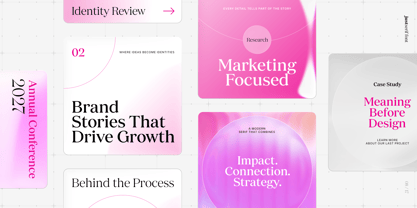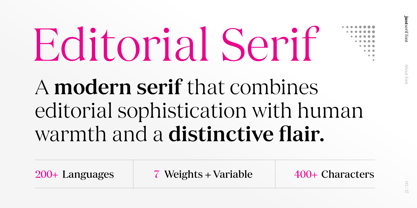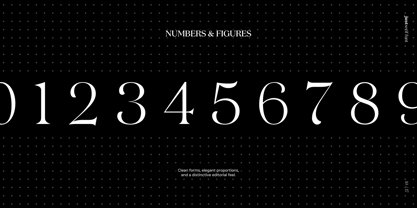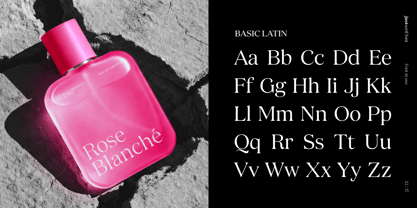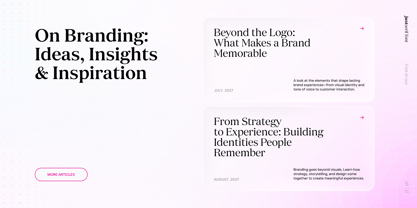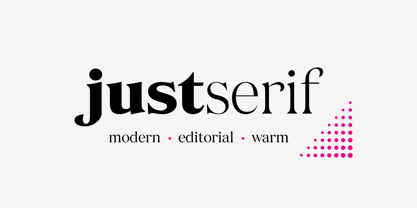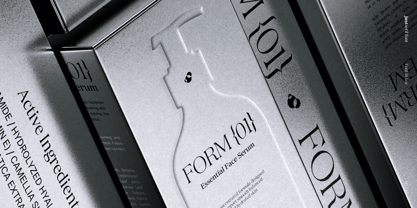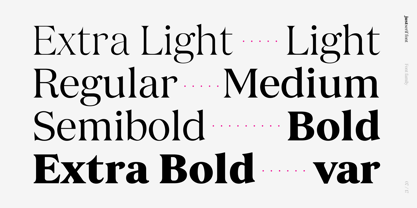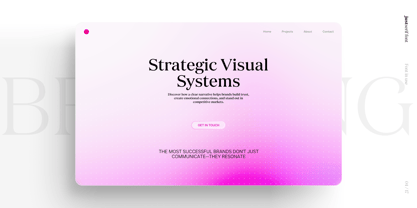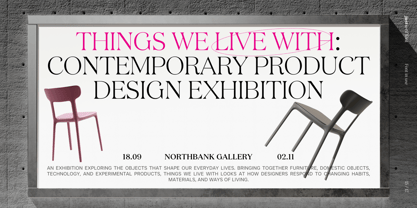
A contemporary editorial serif with human warmth, sculpted contrast, and distinctive character.
JUST Serif is a modern editorial serif typeface designed for branding, logos, editorial design, packaging, publishing, and premium visual identities.
Designed by Russell Bean in collaboration with Jacob Cass, JUST Serif combines expressive elegance with human warmth to create a sophisticated serif that feels both timeless and contemporary. It balances refined craftsmanship with everyday usability, making it equally comfortable in luxury packaging, magazine layouts, hospitality branding, book covers, websites, and identity systems.
Its sculpted letterforms, subtle flared serifs, warm humanist curves, confident capitals, and carefully balanced proportions create a distinctive personality without sacrificing readability. JUST Serif feels polished without becoming precious, serious without feeling rigid, and elegant without falling into the familiar luxury fashion serif stereotype.
Created as the natural serif companion to JUST Sans, JUST Serif shares the same design philosophy while bringing a more expressive editorial voice to the JUST Type Collection. Whether paired with JUST Sans or used independently, it delivers contrast, sophistication, and character while maintaining a consistent visual language.
JUST Serif is equally at home as a modern serif font for branding, an editorial serif font for magazines, a high contrast serif for expressive headlines, or a branding font for sophisticated identity systems. It works beautifully as a logo font, brand identity font, packaging font, book font, magazine font, fashion font, hospitality font, display serif, and premium serif font whenever typography needs to feel refined, contemporary, and memorable.
With seven weights, a variable font, OpenType features, professionally refined kerning, web fonts, and broad Latin language support, JUST Serif is designed to perform across both print and digital applications.
Whether you're building a visual identity, designing a publication, crafting premium packaging, or creating sophisticated typography for the web, JUST Serif brings editorial elegance, human warmth, and timeless versatility to every project.
The JUST Type Collection
JUST Serif was designed alongside JUST Sans and JUST Sans Outline to create a complete typographic system for modern branding.
JUST Serif brings editorial expression.
JUST Sans provides geometric clarity.
JUST Sans Outline adds depth and contrast.
Together they provide a cohesive type system for branding, editorial design, publishing, packaging, digital products, and premium visual identities.